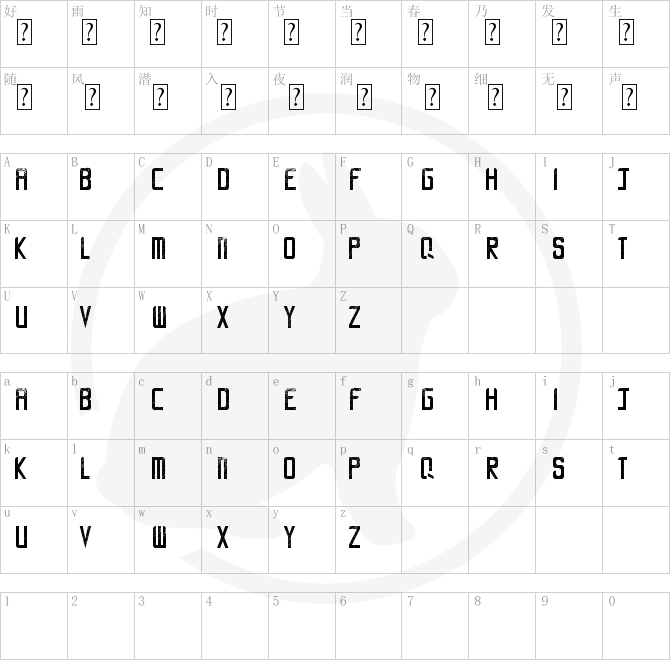
- Font Name:LA CALLE 6
LA-CALLE-6-LJ-Design-Studios-Grunge.ttf is a very beautiful artistic font, LA-CALLE-6-LJ-Design-Studios-Grunge.ttf is widely used in the design and printing of various books and pictures,LA-CALLE-6-LJ-Design-Studios-Grunge.ttf has a strong visual impact,LA-CALLE-6-LJ-Design-Studios-Grunge.ttf is a commonly used font in newspapers, magazines and books, and is used in posters, e-commerce Poster design, store design, logo design, font design and other fields.LA-CALLE-6-LJ-Design-Studios-Grunge.